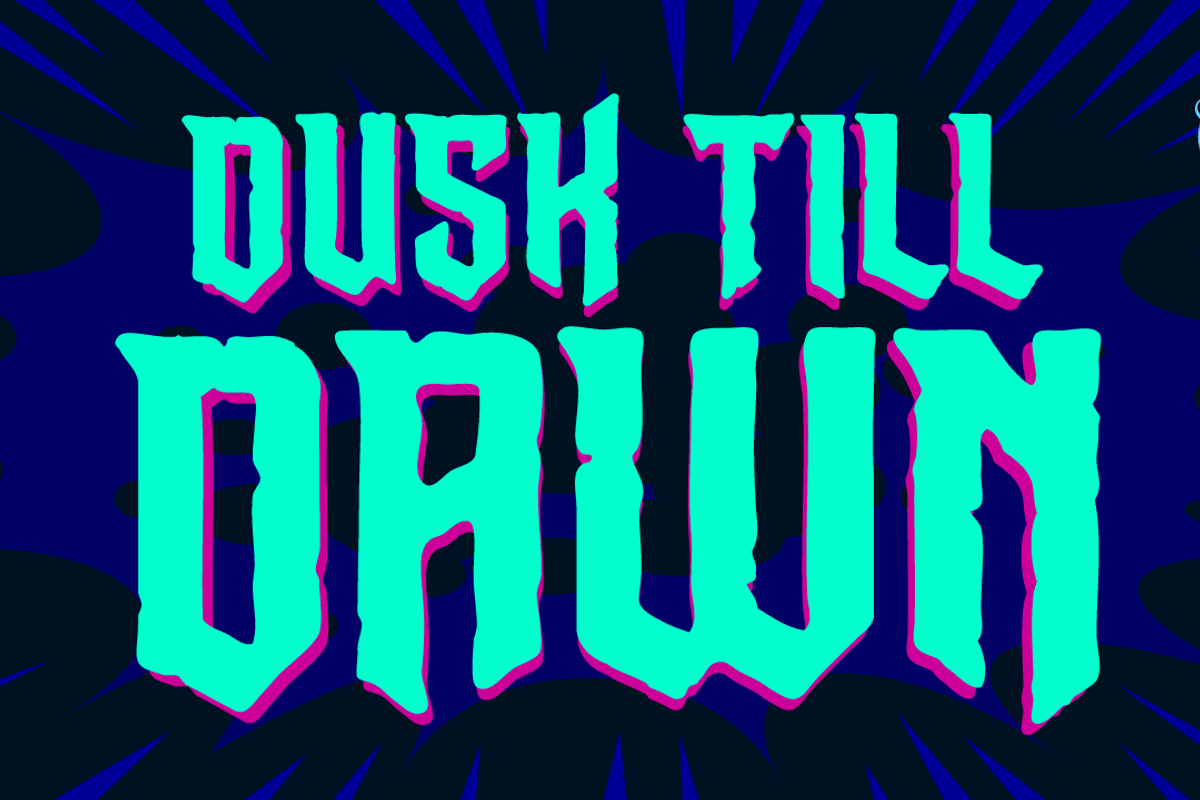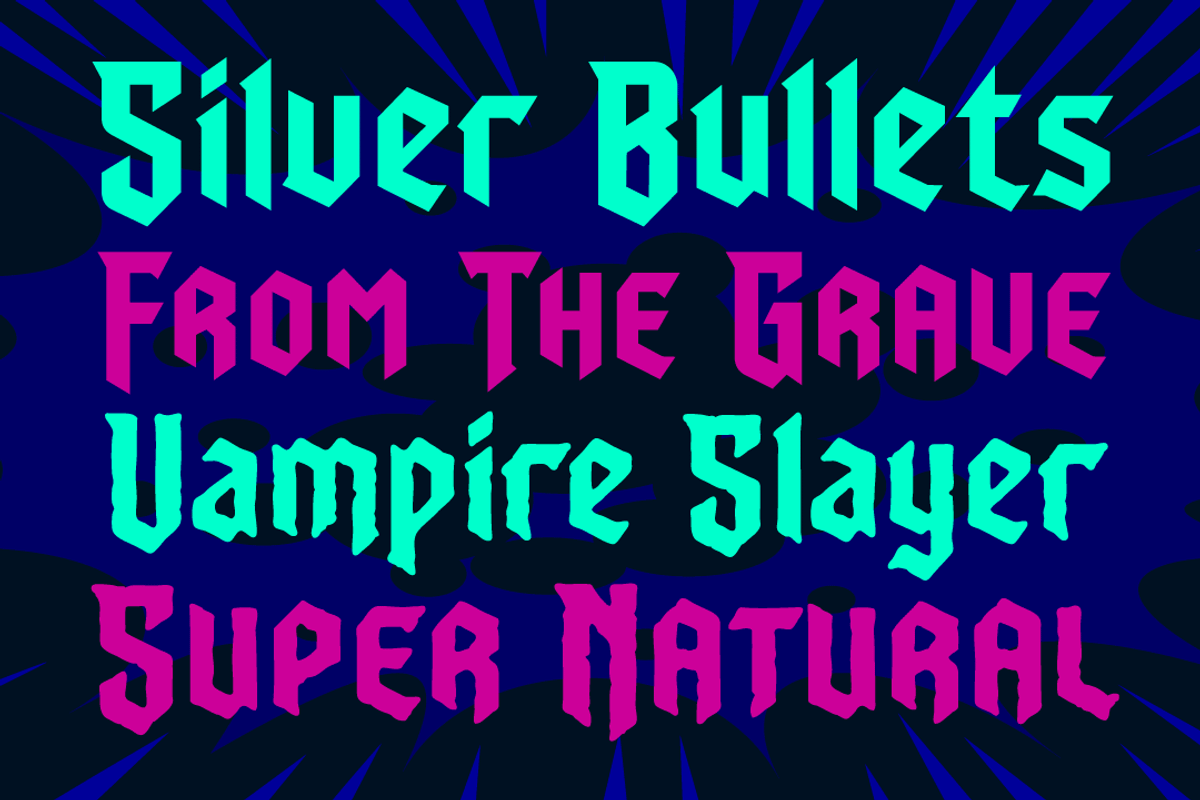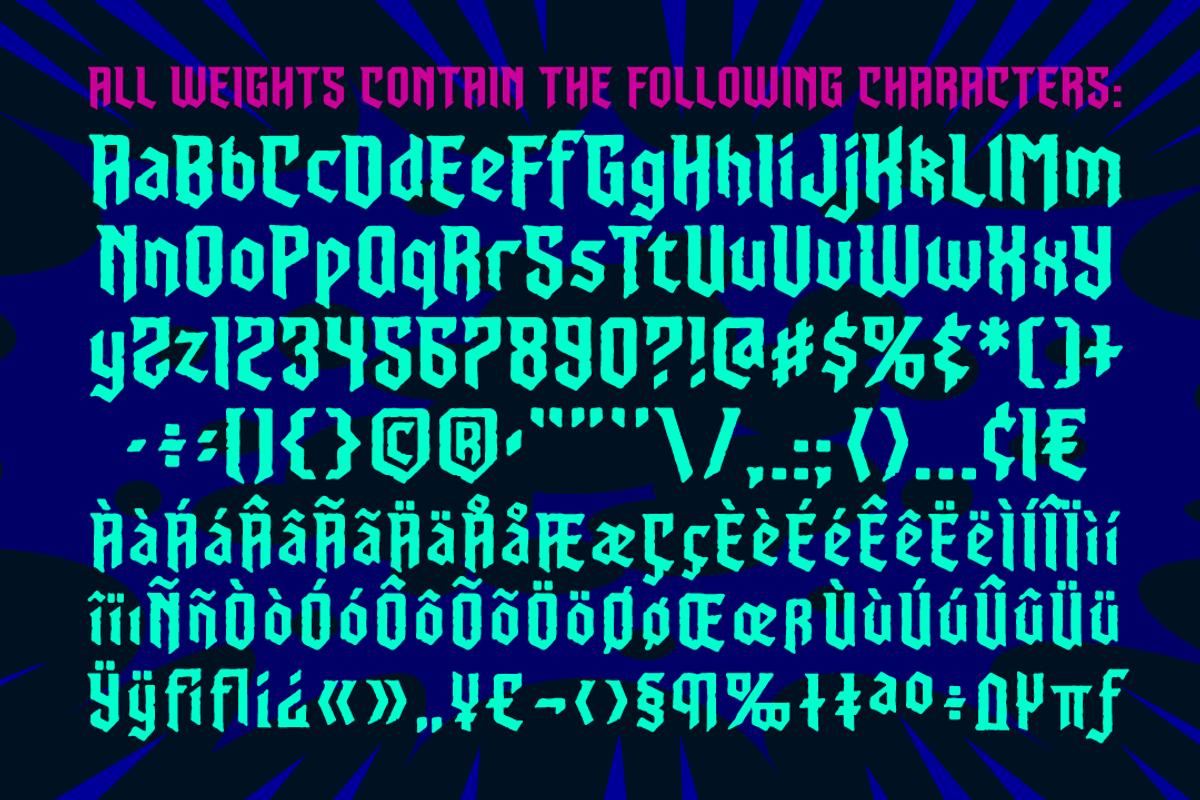
Dusk Till Dawn - creepy vampire font
Dusk Till Dawn - creepy vampire font by Comicraft Fonts is a font selected for branding, posters, packaging, typography.
Why Dusk Till Dawn - creepy vampire font is worth a look
Dusk Till Dawn - creepy vampire font by Comicraft Fonts fits naturally into Branding, posters, packaging, typography.